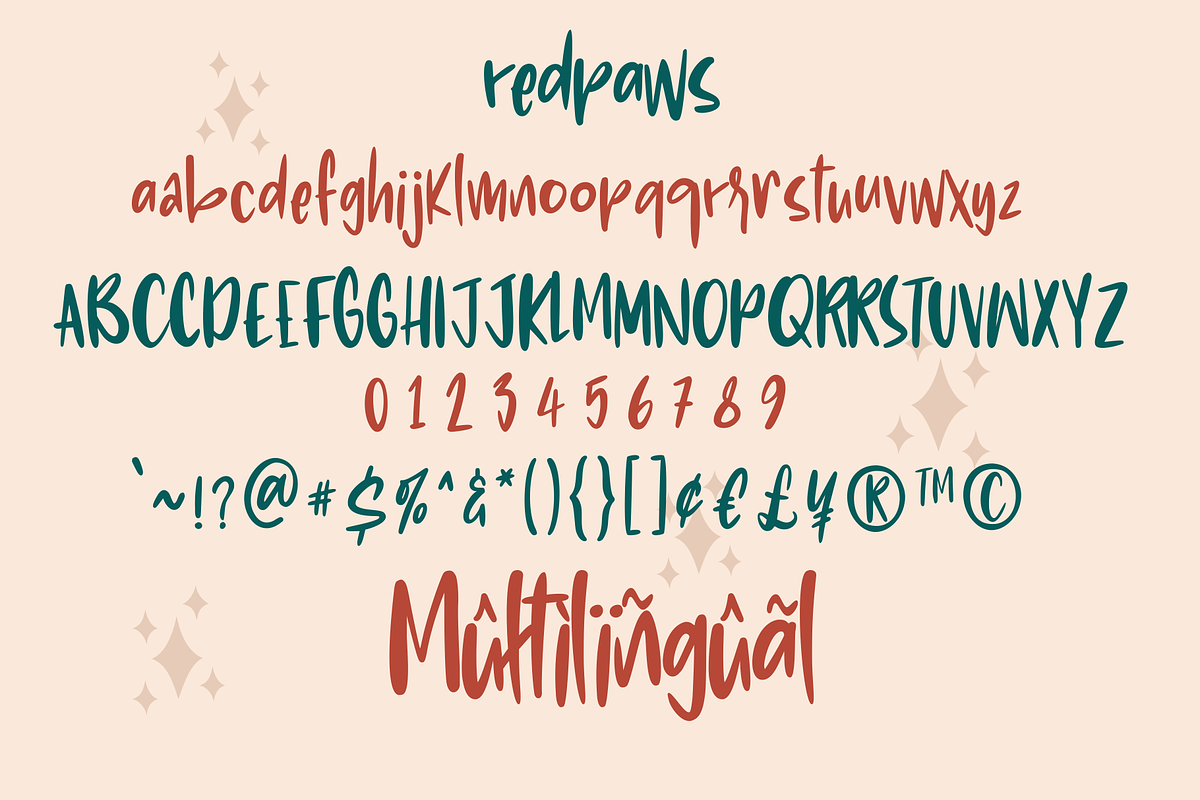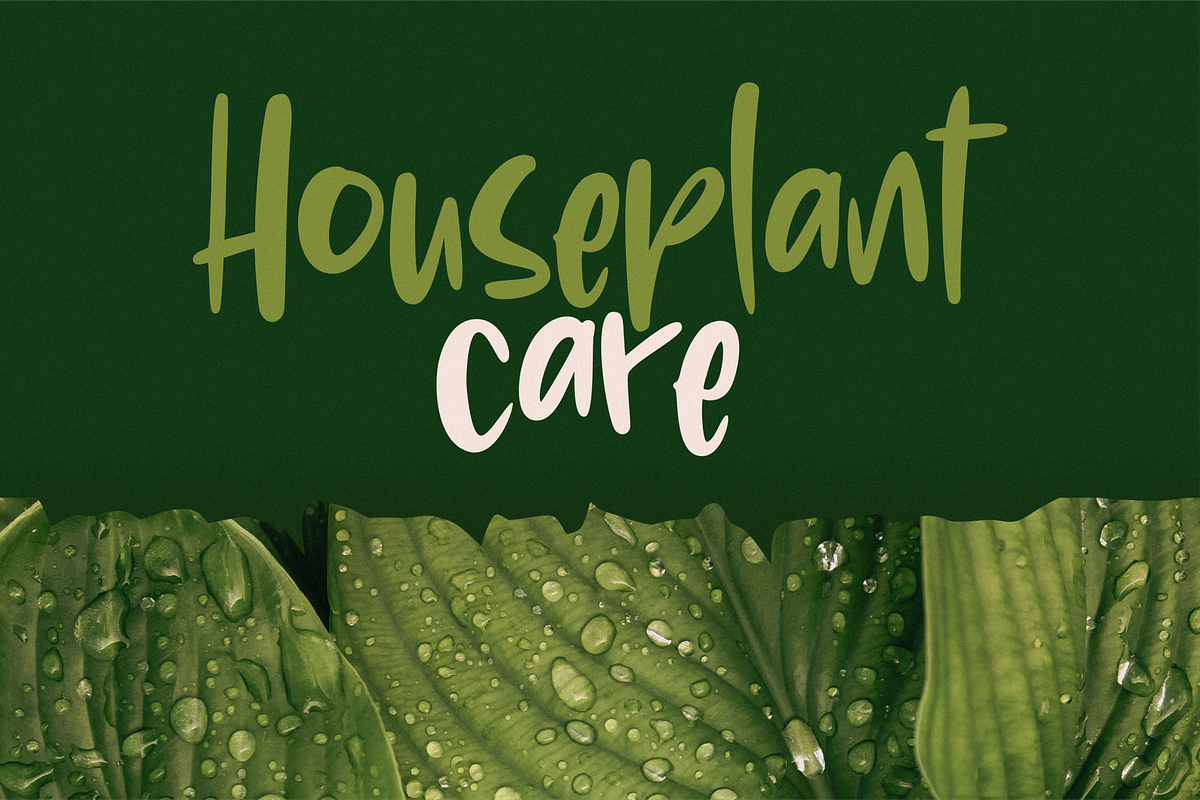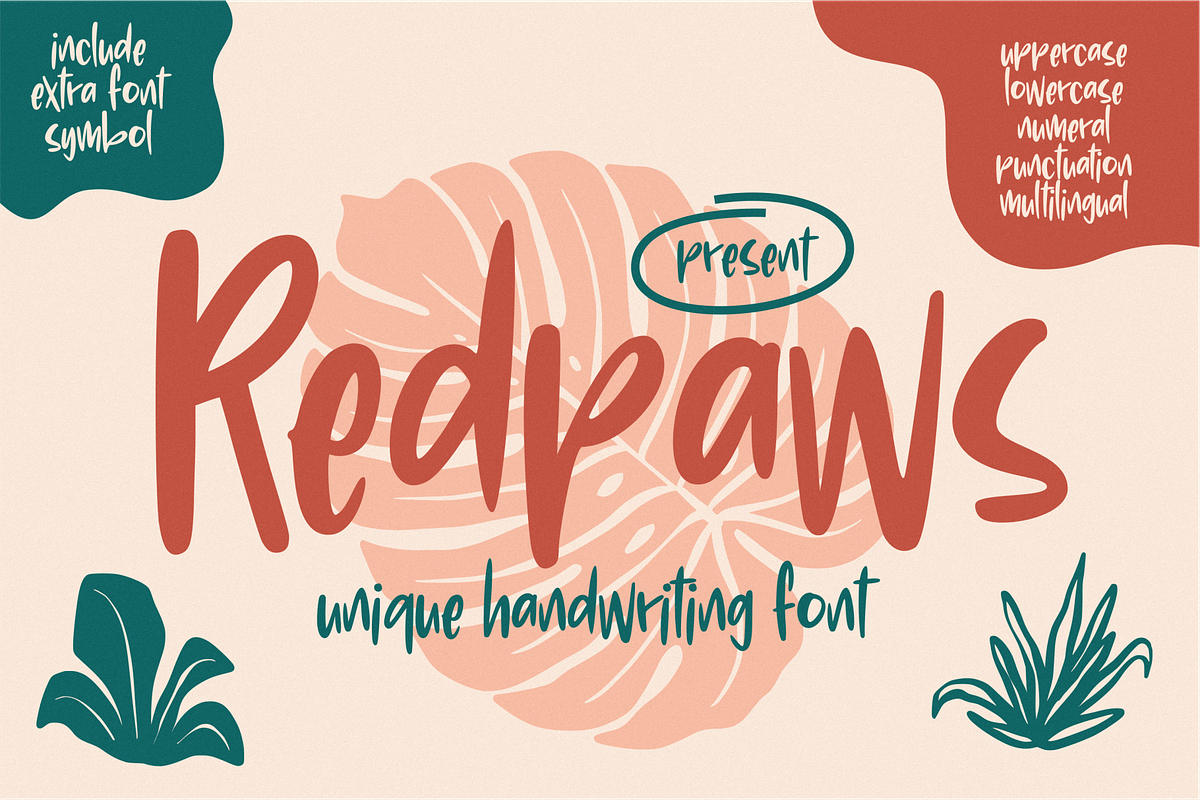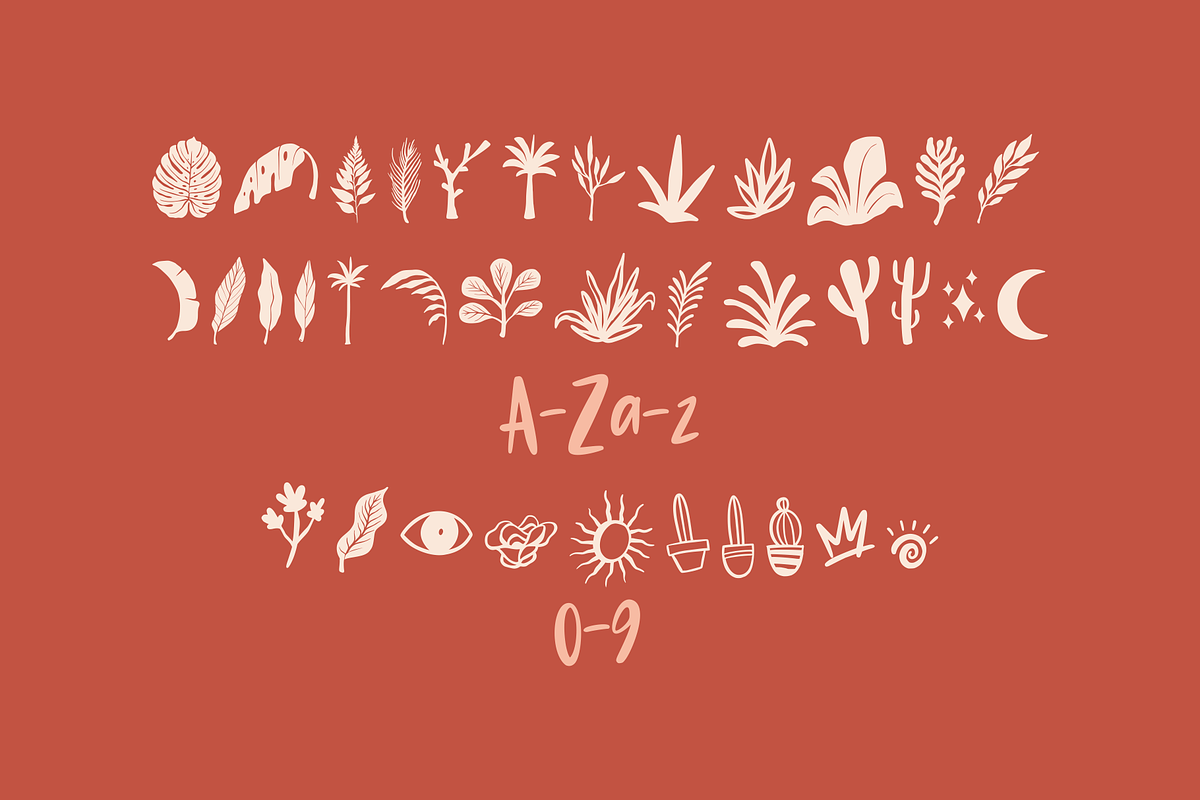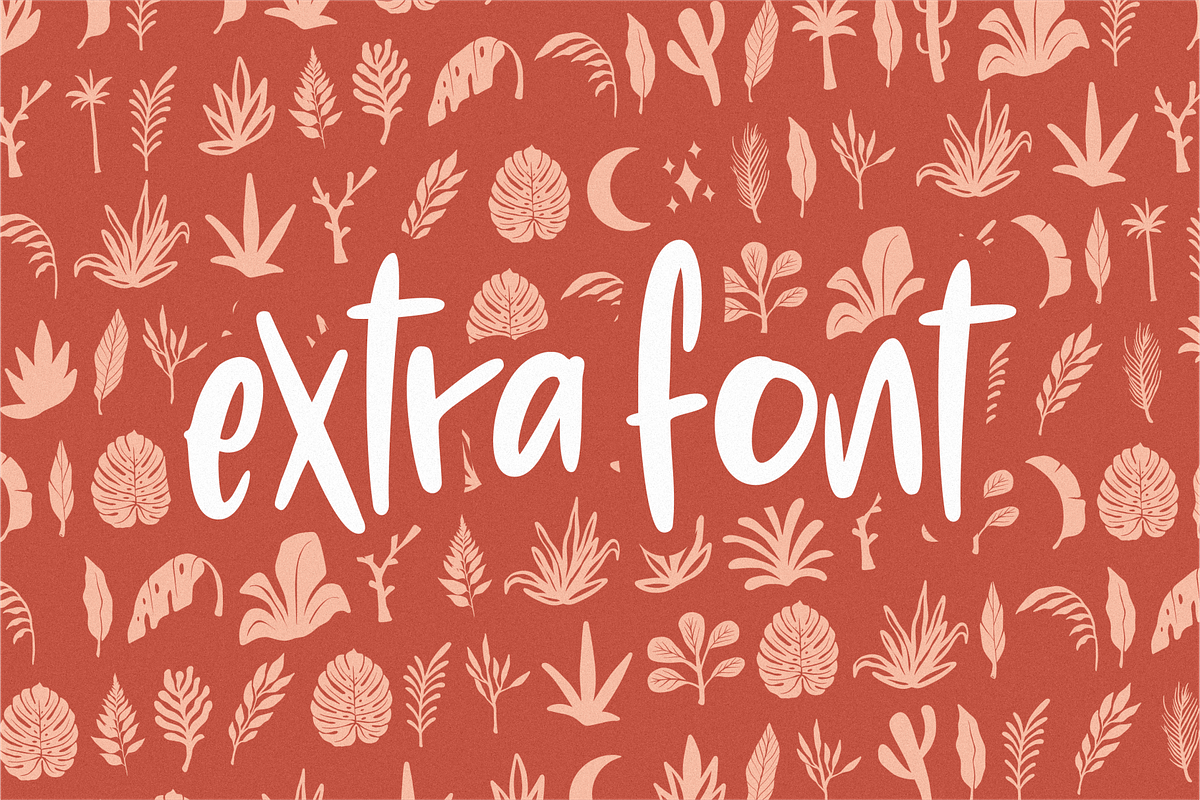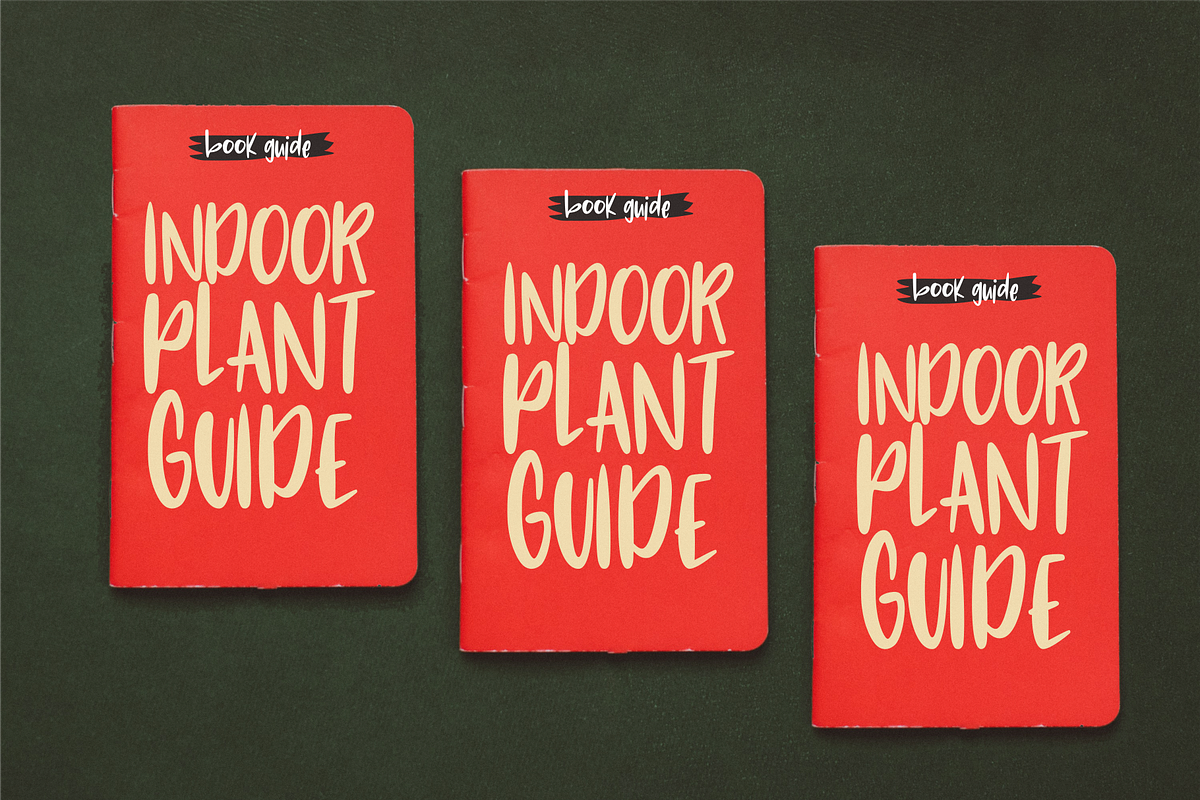
Redpaws Handwriting
Redpaws is a font inspired by a girl's handwriting style that was enhanced to make it perfect when it becomes a font. This font also has extras (Redpaws extra) that contain natural graphics such as leaves.
- Numeral